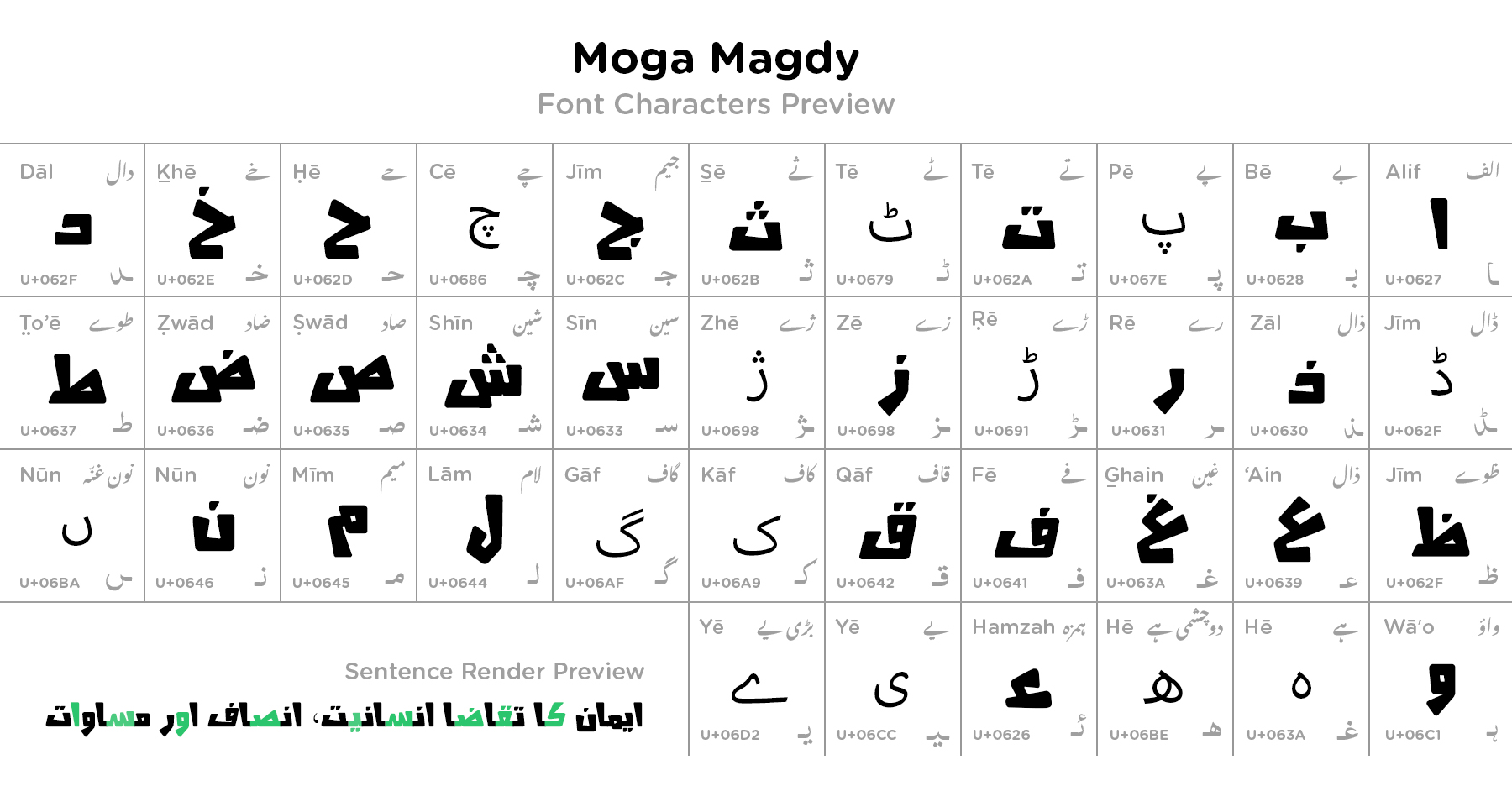
Designed by Magdy Soliman, an Egyptian typeface designer and released under the trademark of Zak Design in 2012, Moga Magdy is a bold and wide Arabic font family. It is seemingly based on the Naskh script, suggested by its geometric parameters. It has an extensive character set of 498 symbols and letterforms, with a glyph count 252. It only comes in bold weight and has support for Arabic and Latin. The lines forming the characters are thick and prominent, making the font stand out visually. The thickness of the lines is inconsistent throughout the characters, unlike fonts with constant thick and thin strokes. This contrasting thickness gives the text a visually appealing outlook. This Arabic font also gives off the feel of cartoon-style fonts with sharp, filled yet playful strokes. The spacing between the letters and words is even and regular, creating an organized appearance with a flair of untidiness. These characteristics make Moga Magdy suitable for various purposes and creative works like comic books, branding, book covers, brochures, and other advertising.